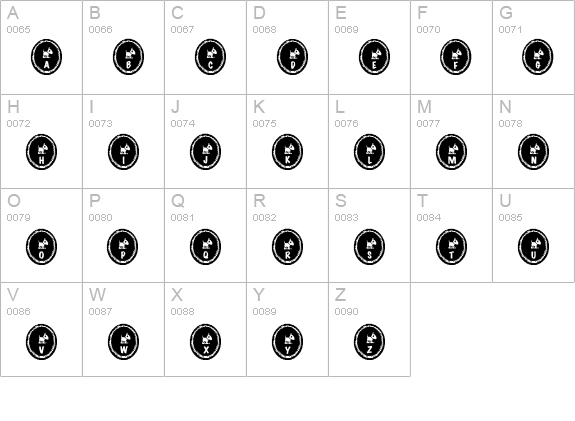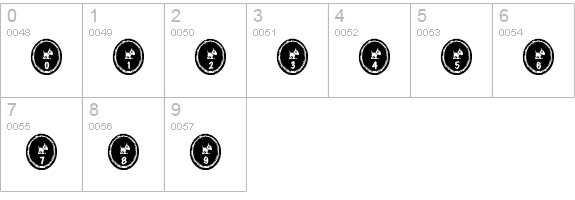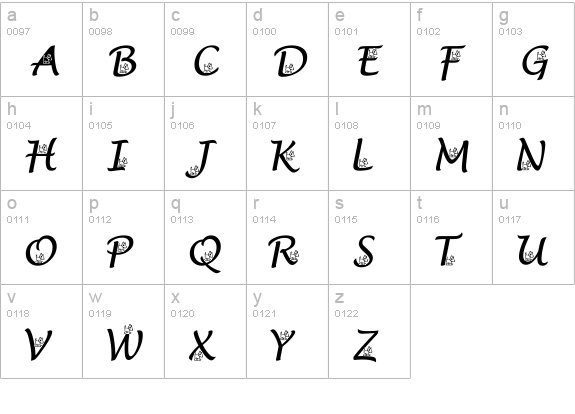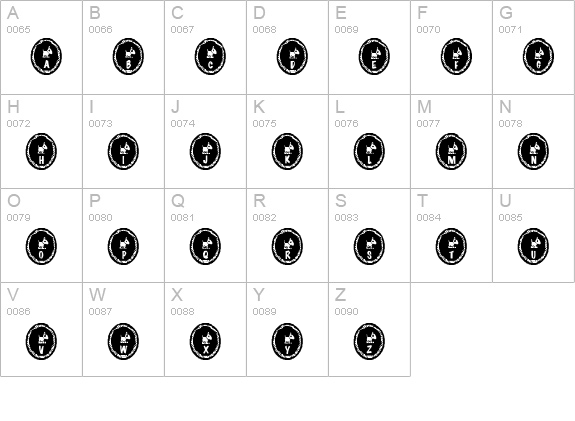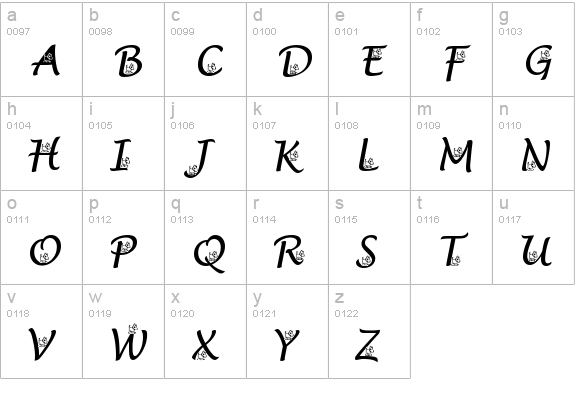
The Bull Terrors font exudes a bold and powerful presence with its strong, stylized letterforms that command attention. Inspired by the strength and ferocity of a raging bull, this font is perfect for making a bold statement in your designs. With its sharp edges and dynamic angles, Bull Terrors adds a touch of edgy sophistication to any project. Best of all, Bull Terrors is available for free download at FontsMarket.com. Whether you're working on a poster, logo, or branding project, this font is sure to make a lasting impression. Embrace the fearless spirit of the Bull Terrors font and unleash your creativity today!